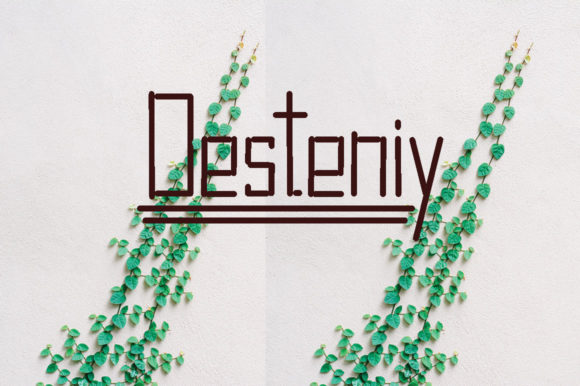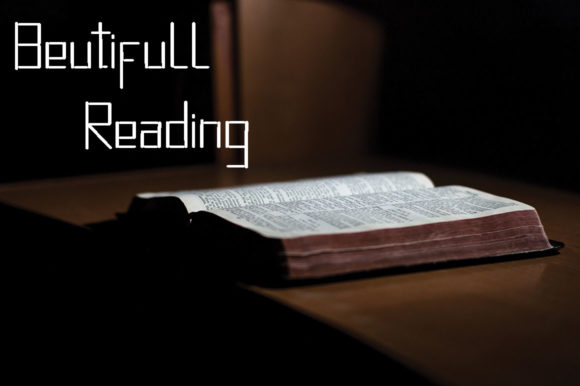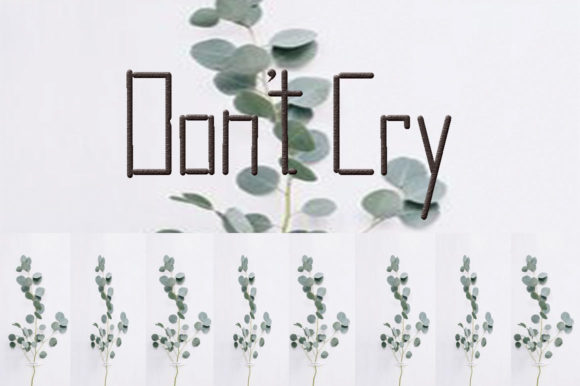
Introduction to Martrikus Font
Martrikus is an awesome display font.
It has a simple and timeless style that makes it perfect for logos, advertising, wedding invitations, t-shirt, letterhead, news, posters, badges and more .
Key Features of Martrikus Font
Why Choose Martrikus Font?